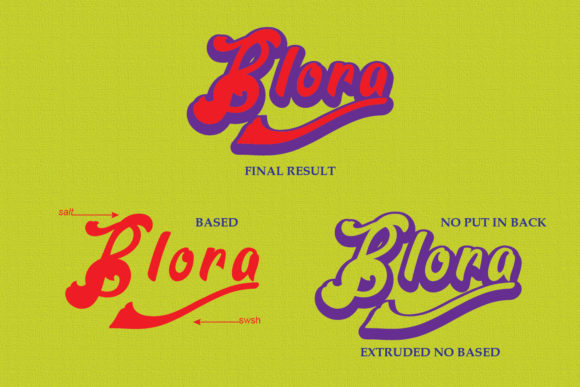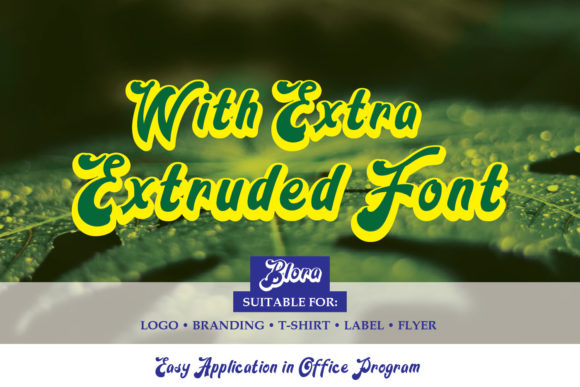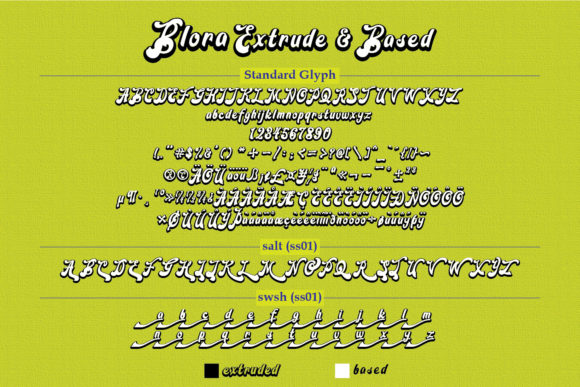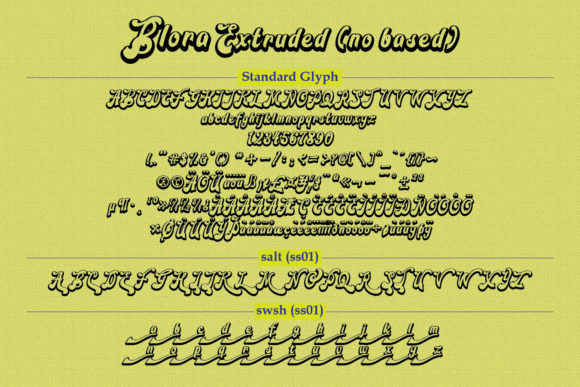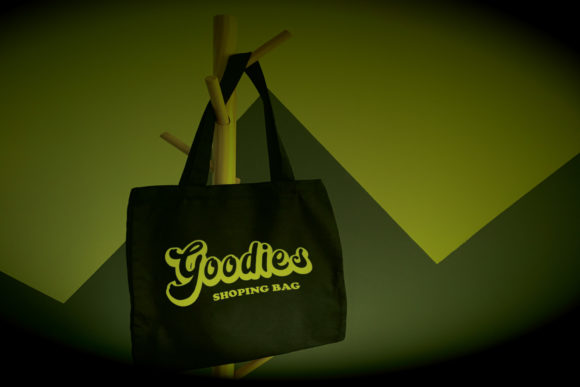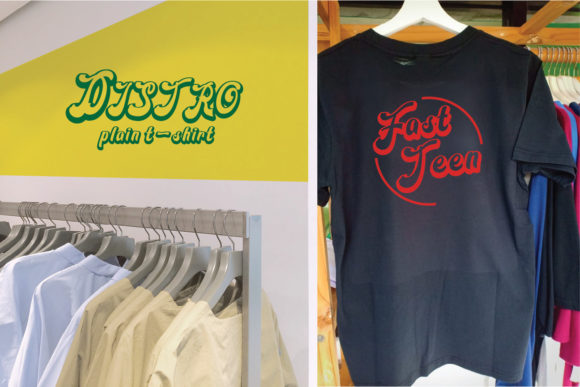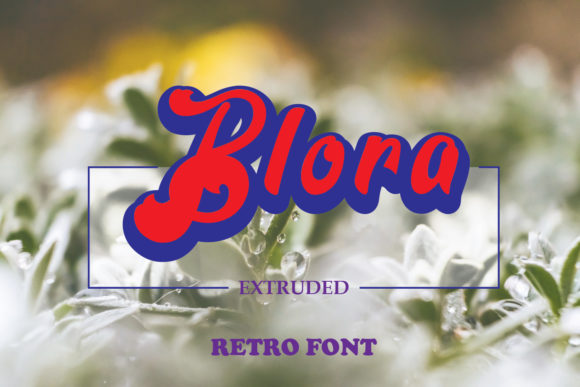
Introducing Blora Font: The Perfect Choice for Your Creative Projects
Are you a designer, crafter, or DIY enthusiast looking for a beautiful and versatile font to elevate your creative projects? Look no further than Blora Font! Crafted with love, Blora is designed to work perfectly in multiple designs, making it an ideal choice for weddings, invitations, greeting cards, and much more.
The Story Behind Blora Font
Blora Font is a carefully crafted typeface that is both elegant and sophisticated. Its unique design makes it perfect for a wide range of creative projects, from formal events like weddings and anniversaries to more casual applications like greeting cards and party invitations. The font’s creator has poured their heart and soul into designing a font that is both beautiful and functional, making it an excellent addition to any designer’s toolkit.
Key Features of Blora Font
- Versatility: Blora Font is designed to work perfectly in multiple designs, making it an excellent choice for a wide range of creative projects.
- Elegance: The font’s elegant design makes it perfect for formal events like weddings, anniversaries, and other special occasions.
- Readability: Blora Font is highly readable, even at small sizes, making it ideal for use in body text or captions.
- Customizability: The font is highly customizable, allowing designers to adjust the lettering, spacing, and other elements to suit their specific needs.
Uses for Blora Font
Blora Font is an incredibly versatile typeface that can be used in a wide range of creative projects, including:
- Wedding Invitations: The font’s elegant design makes it perfect for wedding invitations, save-the-date cards, and other wedding-related stationery.
- Greeting Cards: Blora Font is ideal for use in greeting cards, including birthday cards, holiday cards, and other special occasion cards.
- Party Invitations: The font’s playful design makes it perfect for party invitations, including birthday parties, baby showers, and other celebrations.
- Branding: Blora Font can also be used in branding applications, including logos, business cards, and other marketing materials.
Why Choose Blora Font?
So why choose Blora Font for your creative projects? Here are just a few reasons:
- Unique Design: Blora Font has a unique design that sets it apart from other fonts, making it perfect for designers who want to create something truly special.
- High-Quality: The font is crafted with love and care, ensuring that it is of the highest quality and free from errors.